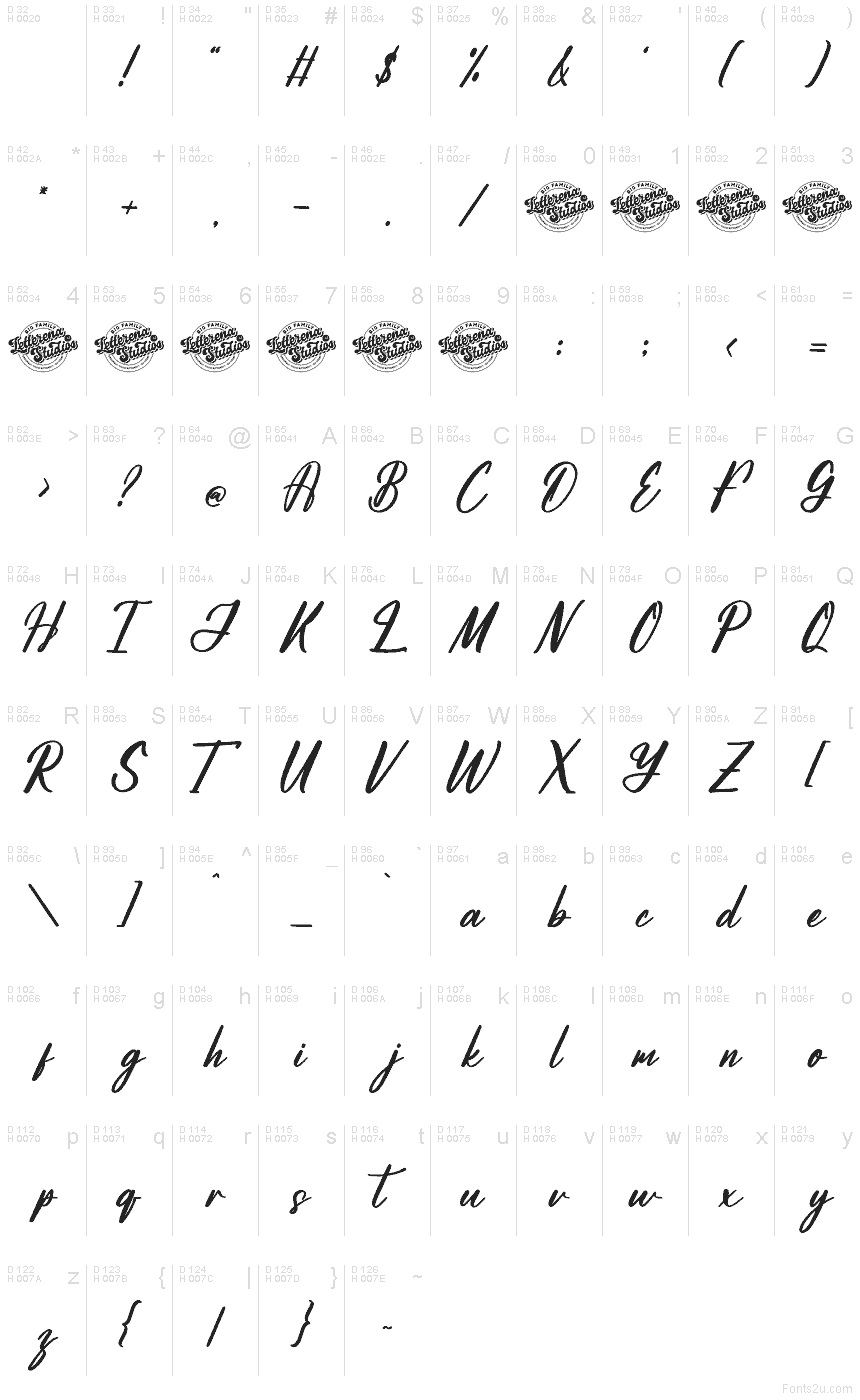
Albathros Yashline DEMO VERSION
Albathros Yashline font by Letterena Studios is a free handwritten script typeface that brings polished calligraphy into everyday design. Its flowing, slightly slanted strokes feel like inky signatures on smooth paper, with just enough texture to keep it human and not overly formal. The letters connect in long, sweeping curves, creating a graceful rhythm that looks luxurious without feeling stiff or old-fashioned.
Using Albathros Yashline, you can add an intimate, personal touch to wedding invitations, boutique branding, product packaging, Instagram quotes, logos, and stationery. This free font shines when it’s given room to breathe in larger sizes, where the loops and swashes can stretch elegantly across the layout. Pair it with a clean sans serif for body text to keep your designs modern, readable, and beautifully balanced.